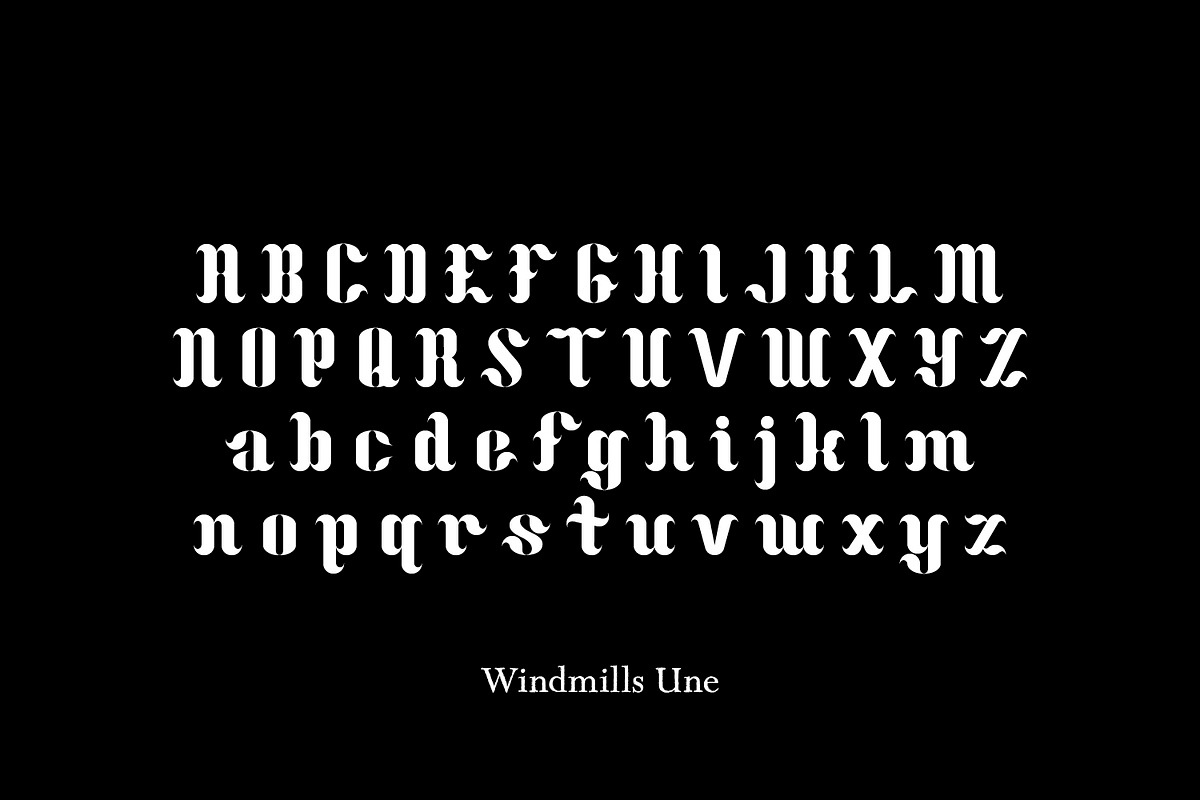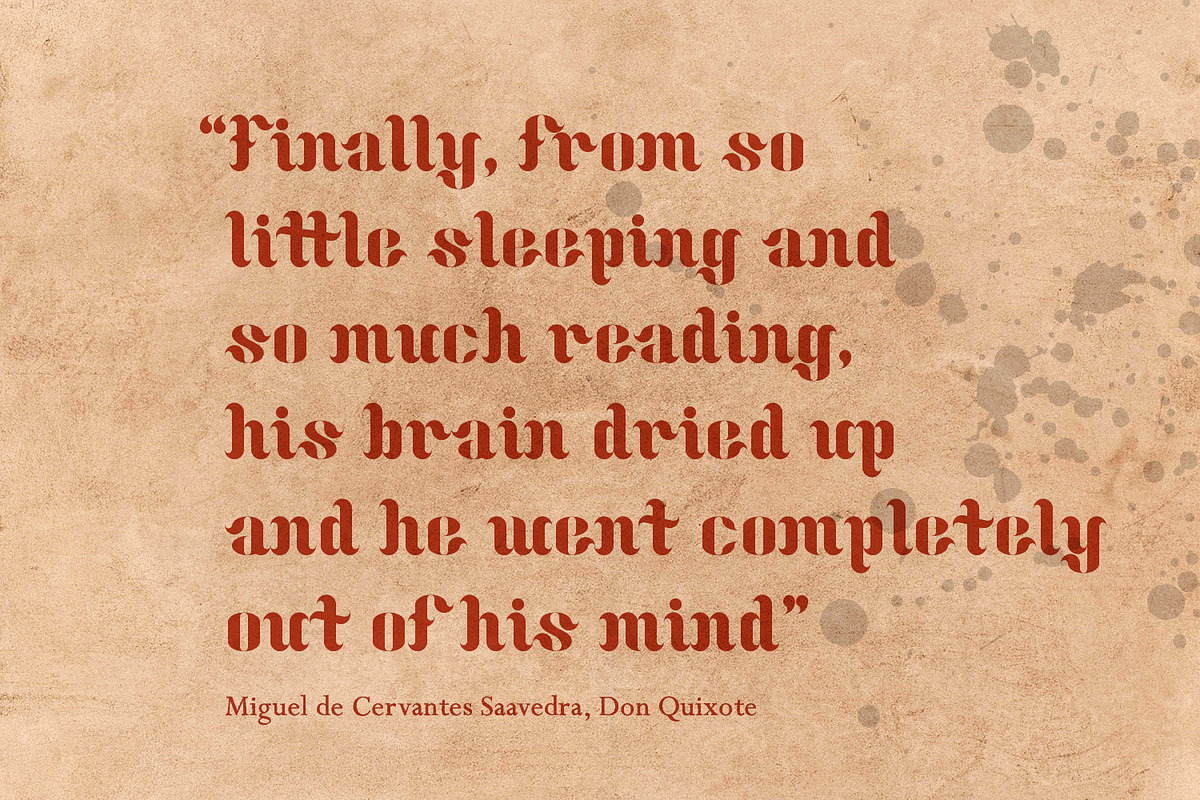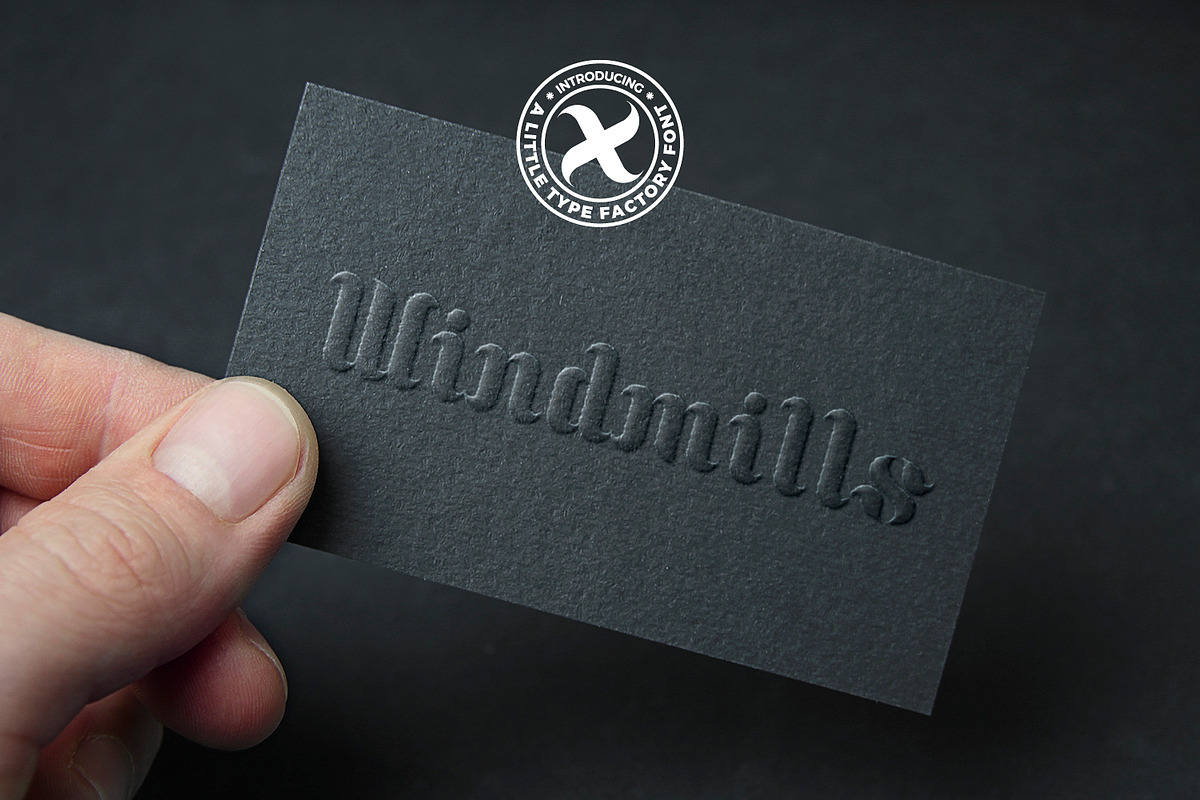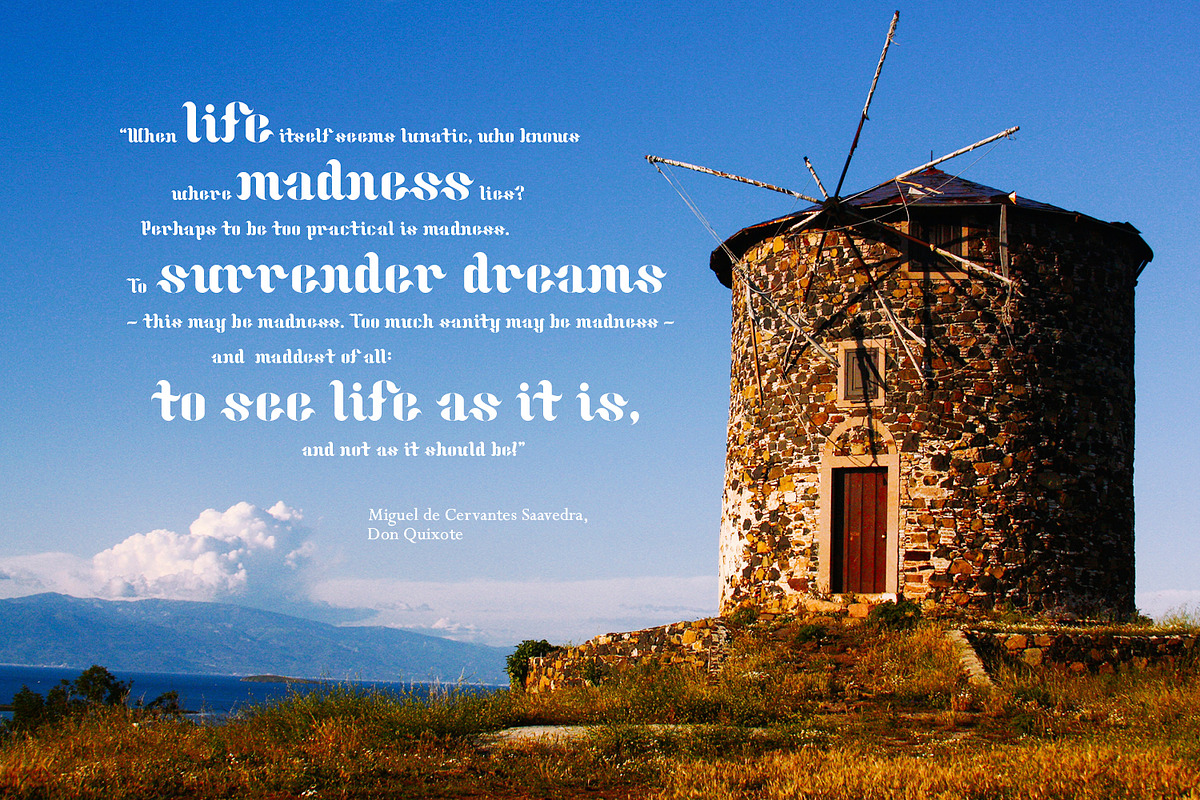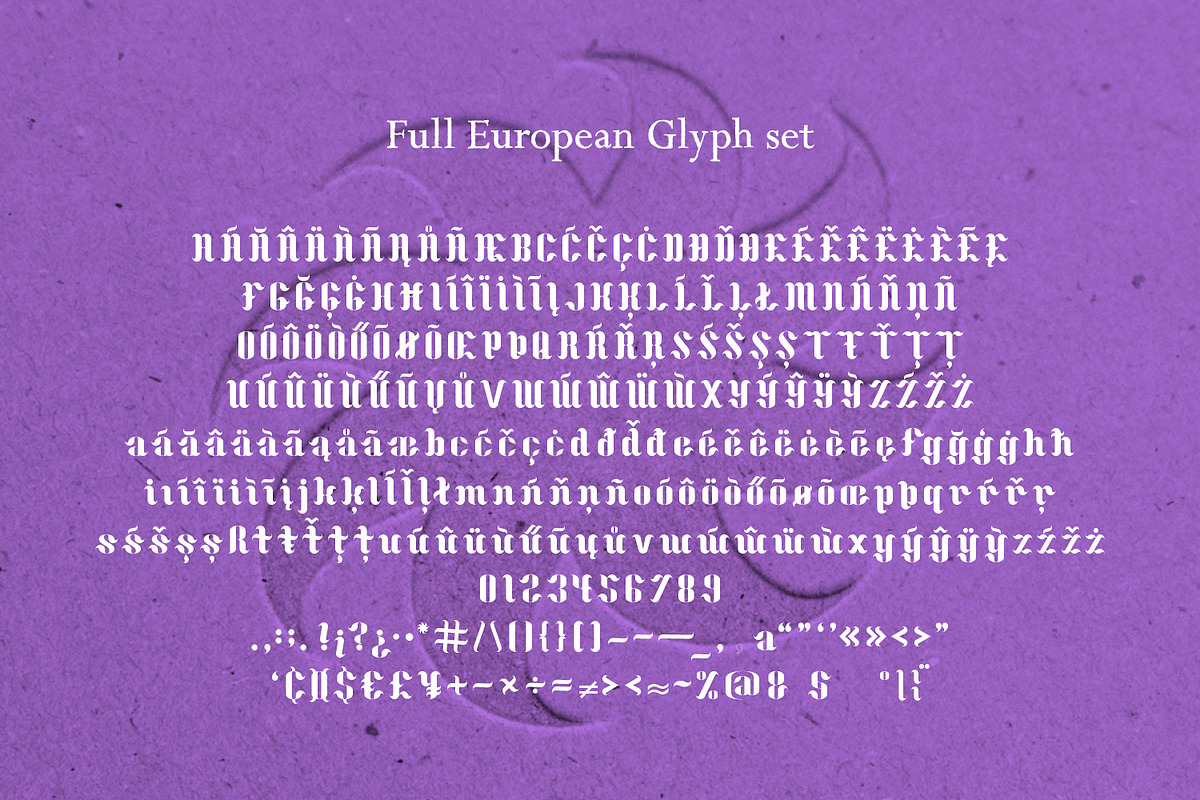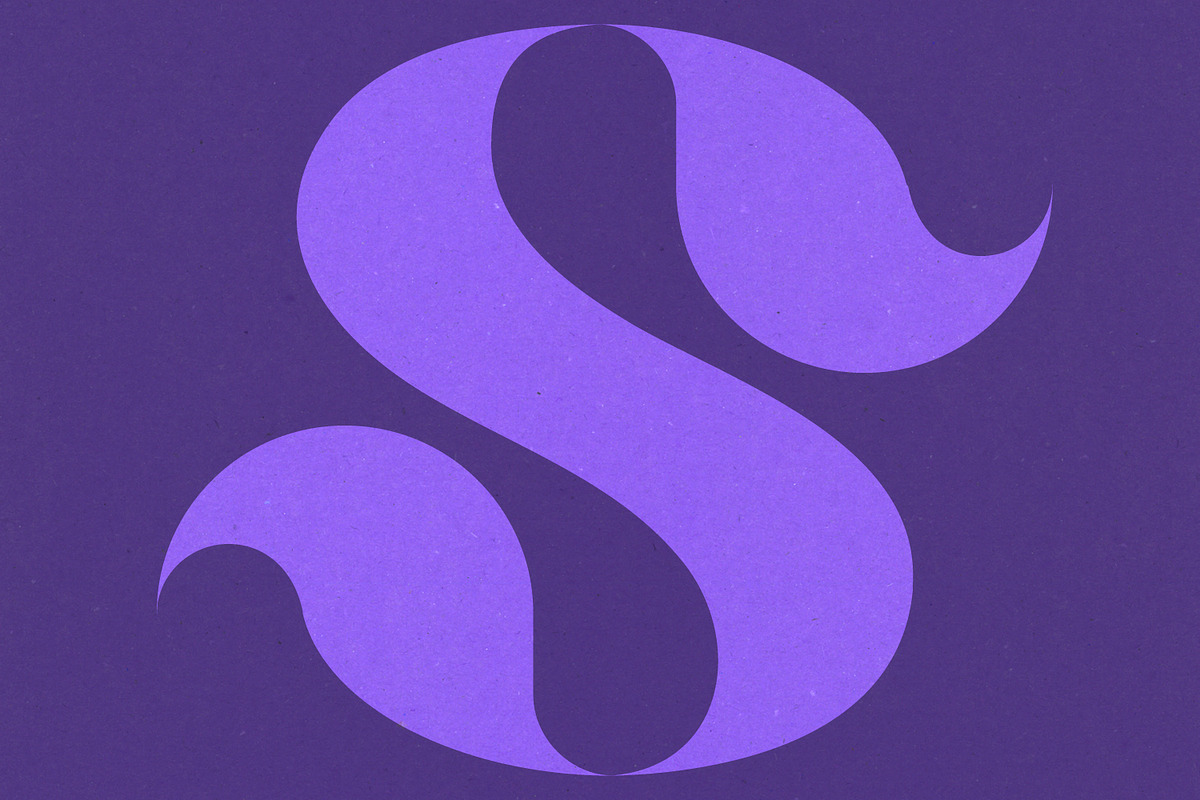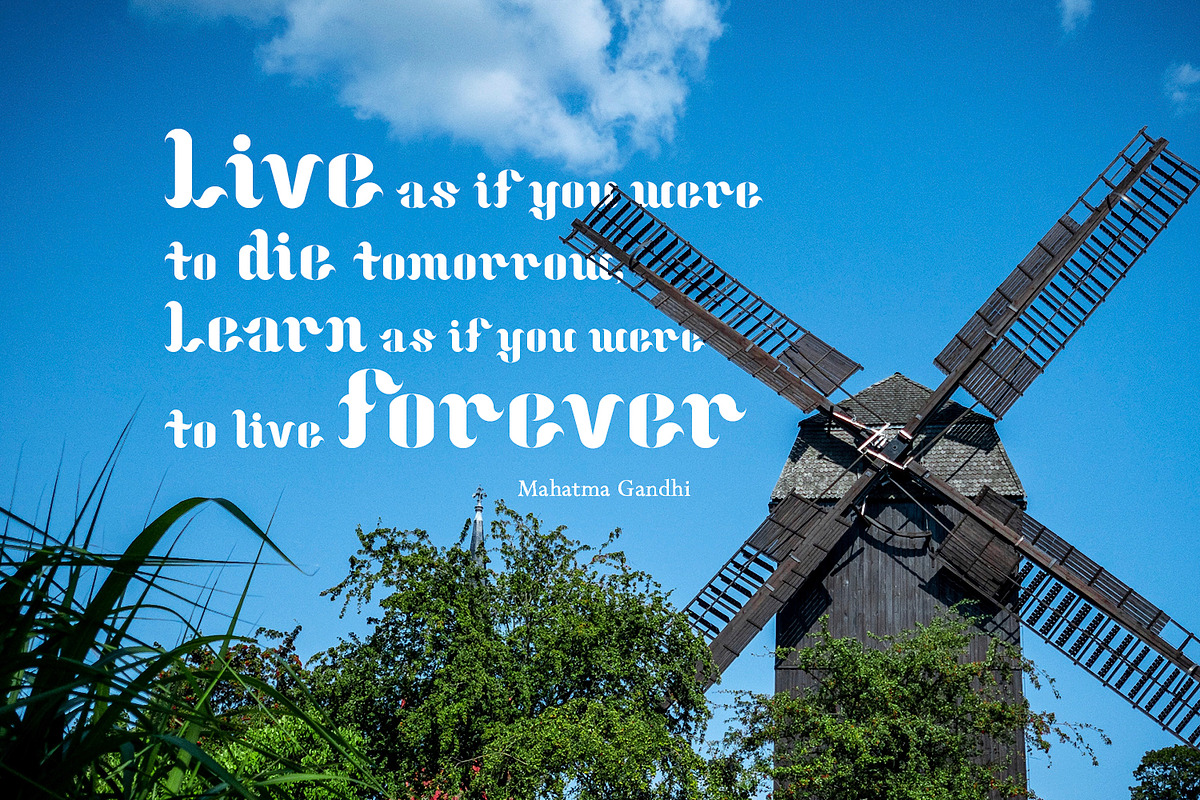
Windmills - ornate swirling serif font
An ornate and decorative font. Stylish and original. Half serif, half blackletter. Both traditional and modern. Designed originally for use as a logo or monogram font. Equally good for branding and products and adding some extra flair to your designs. Single characters work great on their own. Can be used for editorial and pull out quotes.
- Includes the full European character set including western, central and south eastern glyphs.
- Single characters work great on their own.